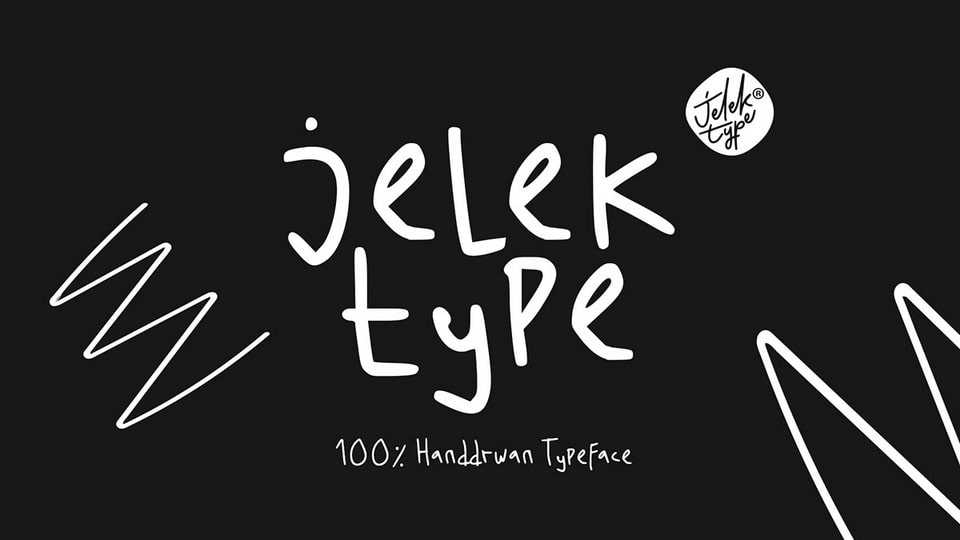
Download Jelek Type font, a simple and imperfect handwritten typeface that embodies the charm of personal touch and authenticity. It features gently irregular letterforms with subtle variations and natural strokes.